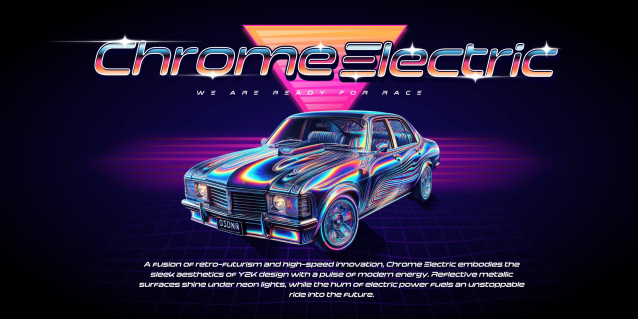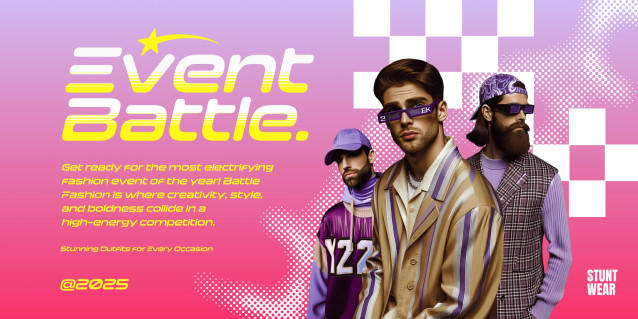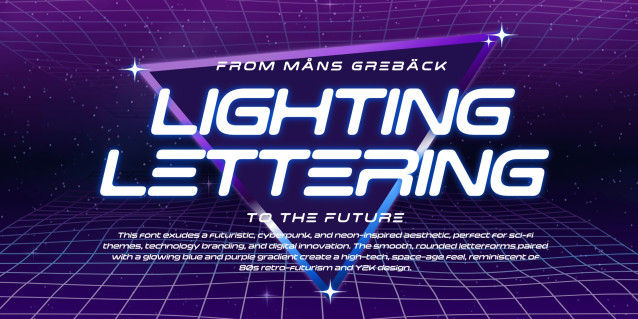
Lighting Lettering Font
Lighting Lettering is a font that zips across the page! With its speedy italic design and rounded square look, Lighting Lettering injects a sense of modern urgency. Sports branding and tech products, or even the titles of a high-octane racing game, are some of its uses.
The font is built with advanced OpenType functionality and guaranteed top-notch quality, containing stylistic and contextual alternates, ligatures and more automatic and manual features; all to give you full control and customizability.
It has extensive lingual support, covering all Latin-based languages, from North Europa to South Africa, from America to South-East Asia. It contains all characters and symbols you’ll ever need, including all punctuation and numbers.
I wanted to capture the essence of speed and innovation in a single typeface. Lighting Lettering is the result – a font that’s both functional and visually electrifying.